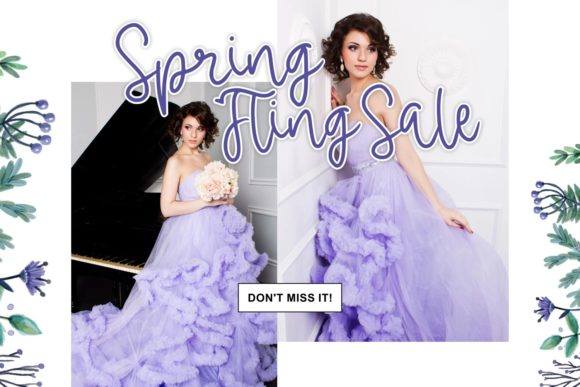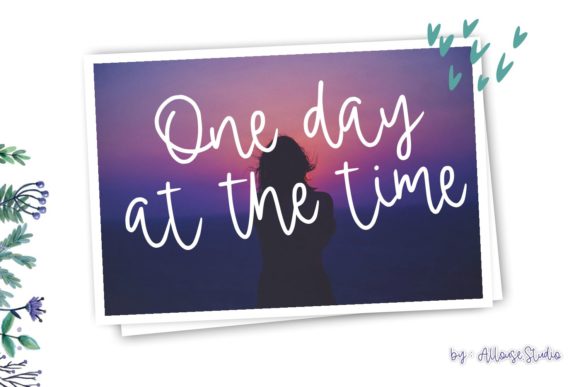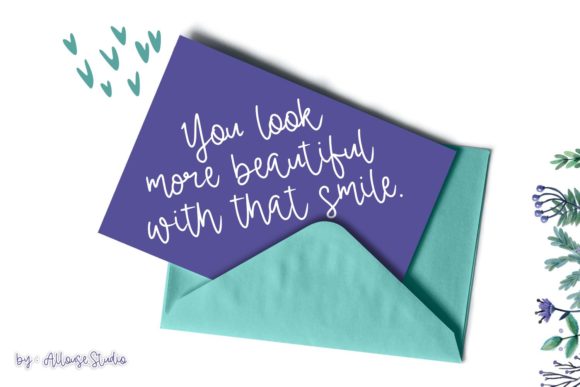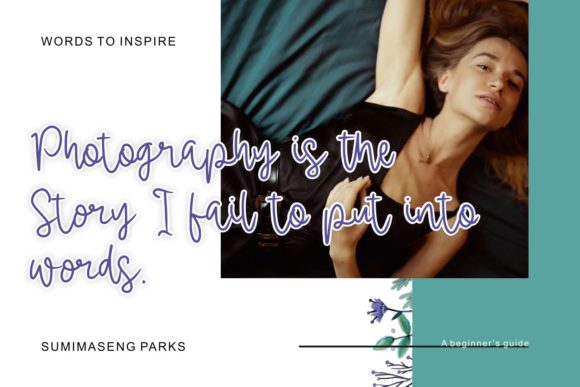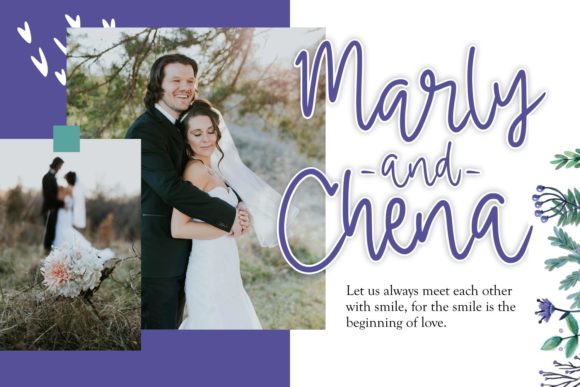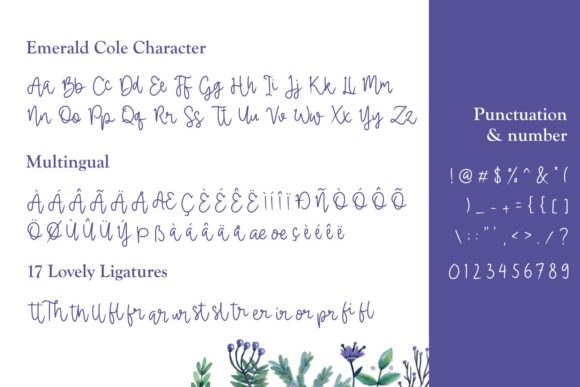
Introducing Emerald Cole Font: The Perfect Choice for Romantic Designs
Are you a designer or crafter looking for a font that exudes sweetness and delicacy? Look no further than Emerald Cole Font! This beautiful handwritten font is perfect for creating romantic and personalized designs that will capture the hearts of your audience. In this article, we’ll dive into the features and benefits of Emerald Cole Font, and explore how you can use it to elevate your designs.
A Sweet and Delicate Handwritten Font
Emerald Cole Font is a stunning handwritten font that is characterized by its dainty and joyful feel. The font’s delicate strokes and elegant letterforms make it perfect for creating designs that require a touch of romance and whimsy. Whether you’re designing wedding invitations, greeting cards, or other paper crafts, Emerald Cole Font is sure to add a special touch to your creations.
Ideal for Romantic Designs
So, what makes Emerald Cole Font so well-suited for romantic designs? For starters, the font’s elegant and refined feel makes it perfect for wedding-related designs, such as invitations, save-the-date cards, and thank-you notes. The font’s delicate strokes and playful flair also make it ideal for creating personalized gifts, such as customized mugs, tote bags, and jewelry.
Features and Benefits of Emerald Cole Font
Here are just a few of the features and benefits that make Emerald Cole Font a top choice for designers and crafters:
- Sweet and delicate feel: Emerald Cole Font has a charming, handwritten feel that’s perfect for creating romantic and personalized designs.
- Dainty and joyful: The font’s delicate strokes and elegant letterforms make it perfect for creating designs that require a touch of whimsy and playfulness.
- Easy to read: Despite its delicate feel, Emerald Cole Font is surprisingly easy to read, making it perfect for designs that require a clear and legible font.
- Versatile: Emerald Cole Font can be used for a wide range of designs, from wedding invitations and greeting cards to customized gifts and paper crafts.
How to Use Emerald Cole Font in Your Designs
Ready to start using Emerald Cole Font in your designs? Here are a few tips to get you started:
- Pair with other fonts: Emerald Cole Font pairs beautifully with other fonts, such as serif and sans-serif fonts. Try pairing it with a bold font for a striking contrast.
- Use for headings and titles: Emerald Cole Font is perfect for headings and titles, where its elegant and refined feel can really shine.
- Add embellishments: Consider adding embellishments, such as flowers or lace, to give your designs an extra touch of romance and whimsy.
Here are a few additional tips for designers and crafters who want to get the most out of Emerald Cole Font:
- Experiment with different colors: Emerald Cole Font looks beautiful in a range of colors, from soft pastels to rich jewel tones. Experiment with different colors to find the perfect look for your design.
- Use for digital and print designs: Emerald Cole Font can be used for both digital and print designs, making it a versatile choice for designers and crafters.
- Get creative with layout: Don’t be afraid to get creative with your design layout. Emerald Cole Font looks beautiful in a variety of layouts, from simple and elegant to more complex and ornate.
In conclusion, Emerald Cole Font is a beautiful and versatile font that’s perfect for designers and crafters who want to add a touch of romance and whimsy to their designs. With its delicate strokes, elegant letterforms, and joyful feel, this font is sure to become a favorite in your design arsenal. So why wait? Download Emerald Cole Font today and start creating stunning designs that will capture the hearts of your audience!